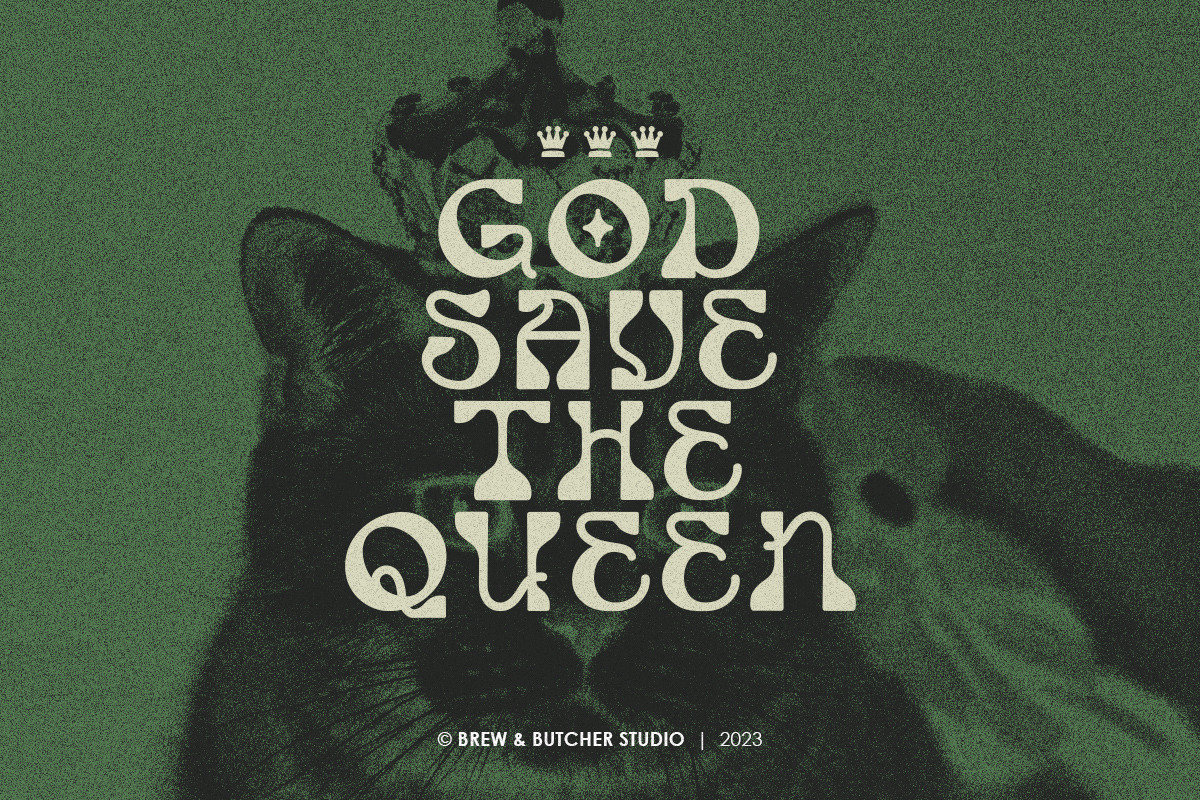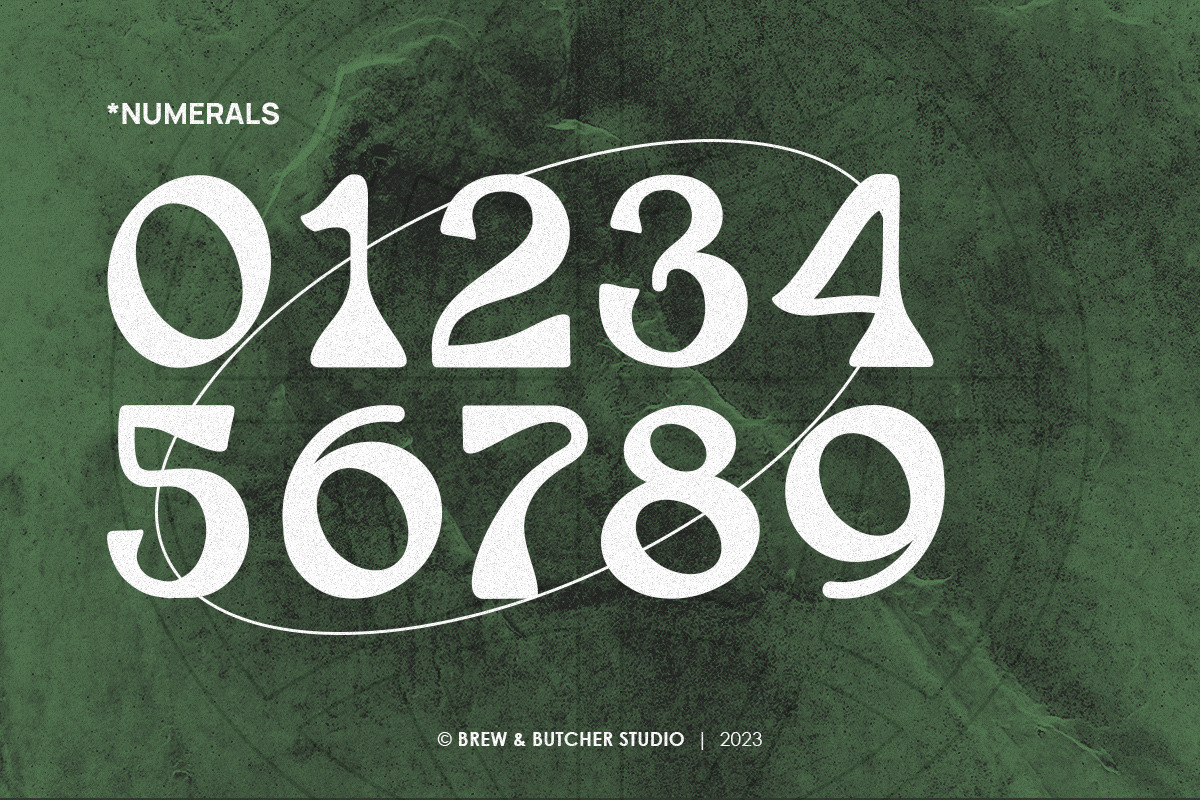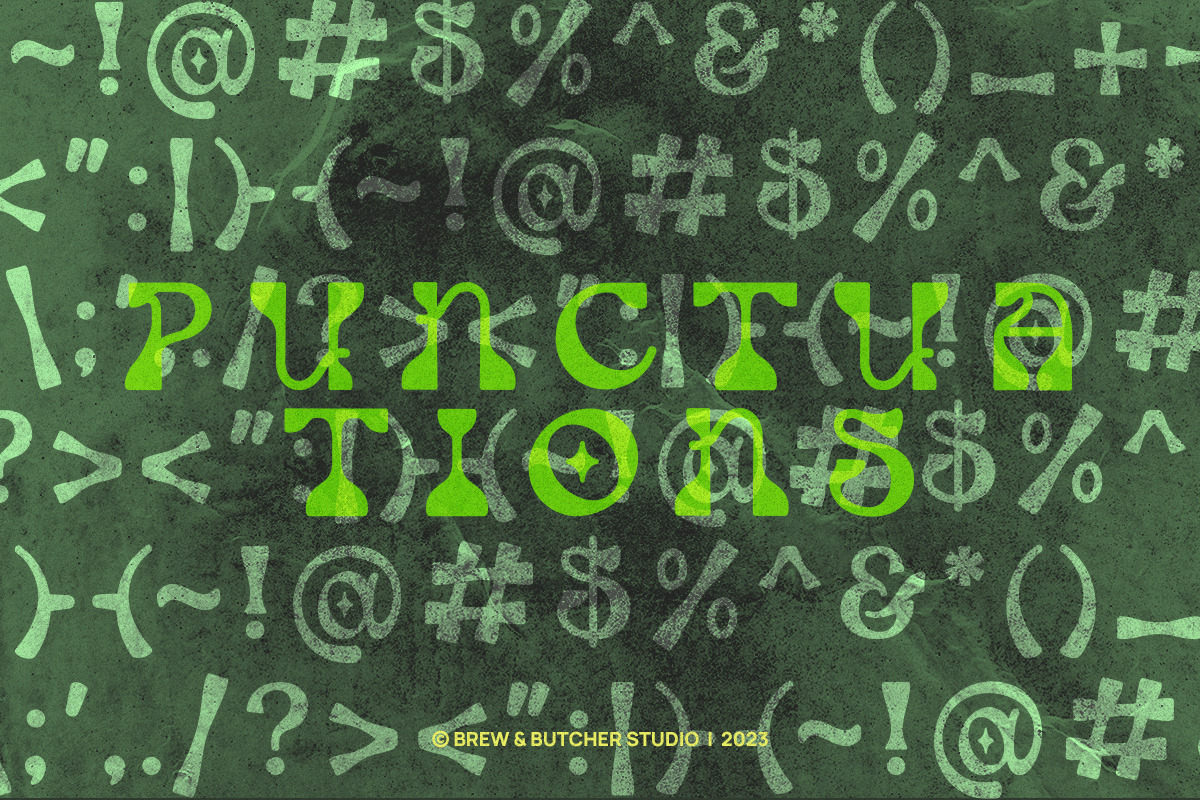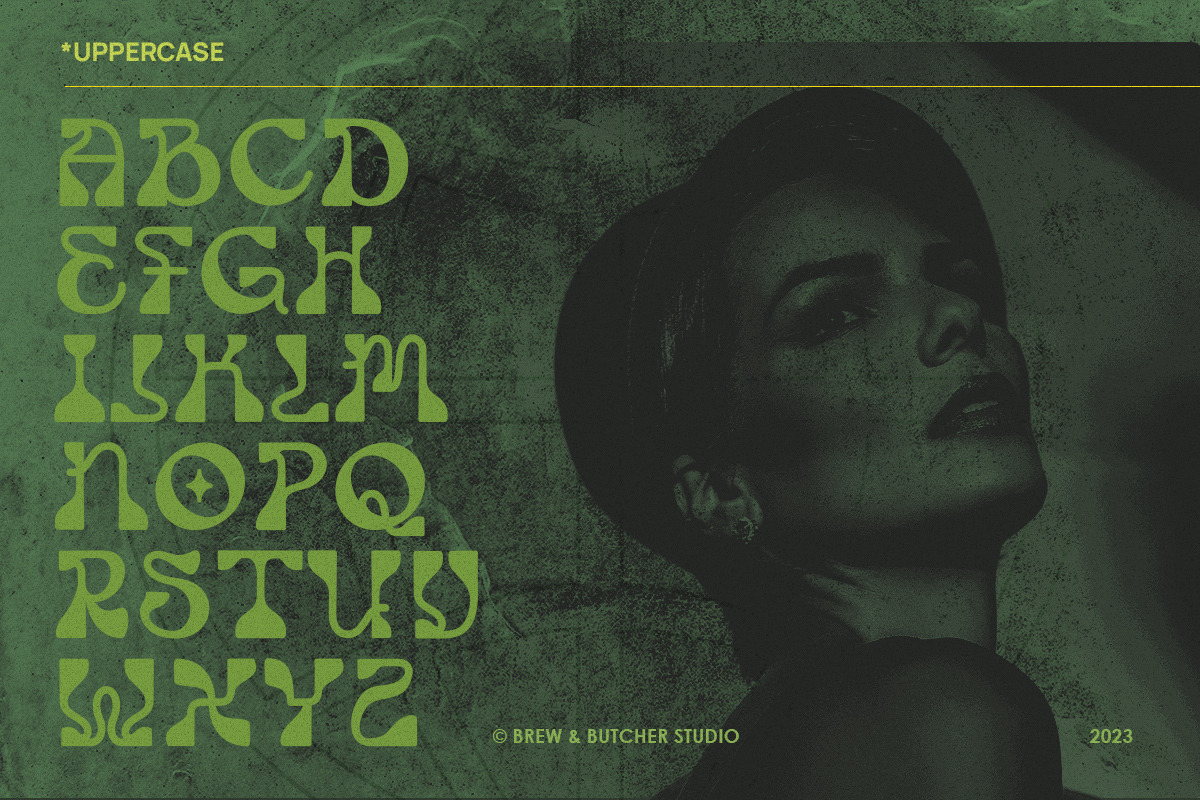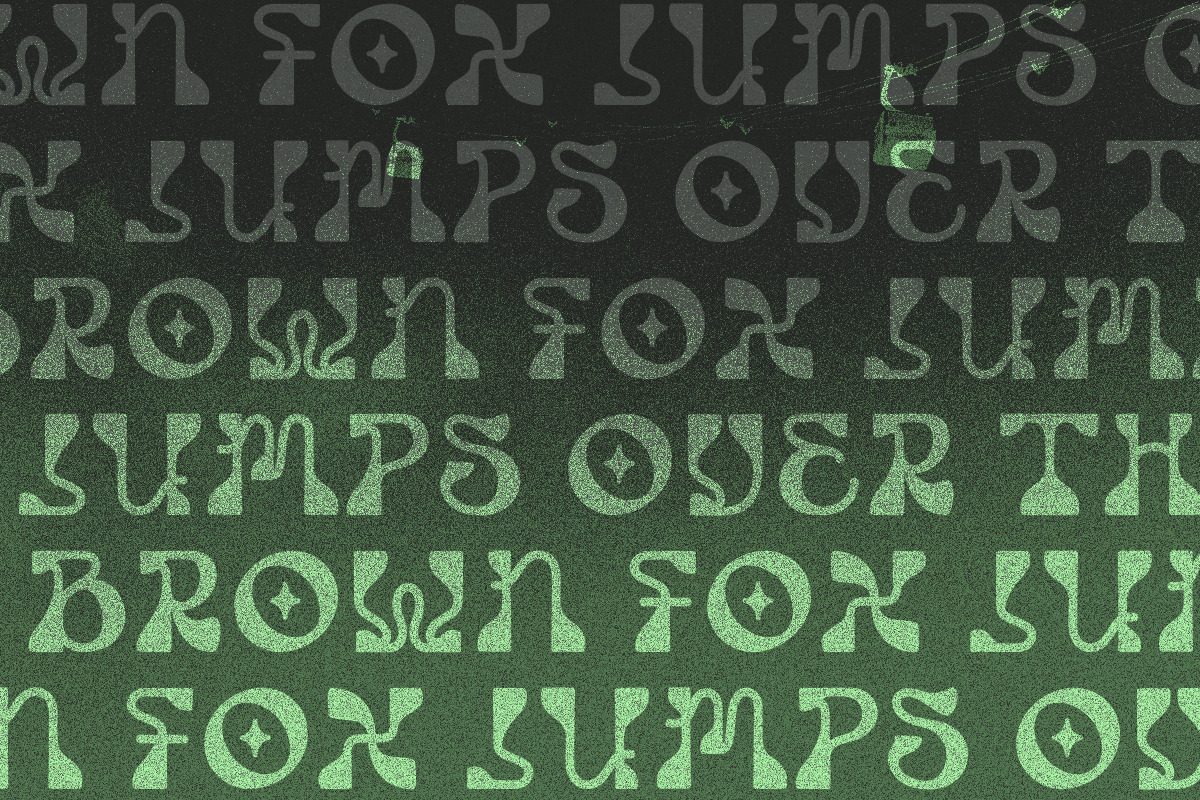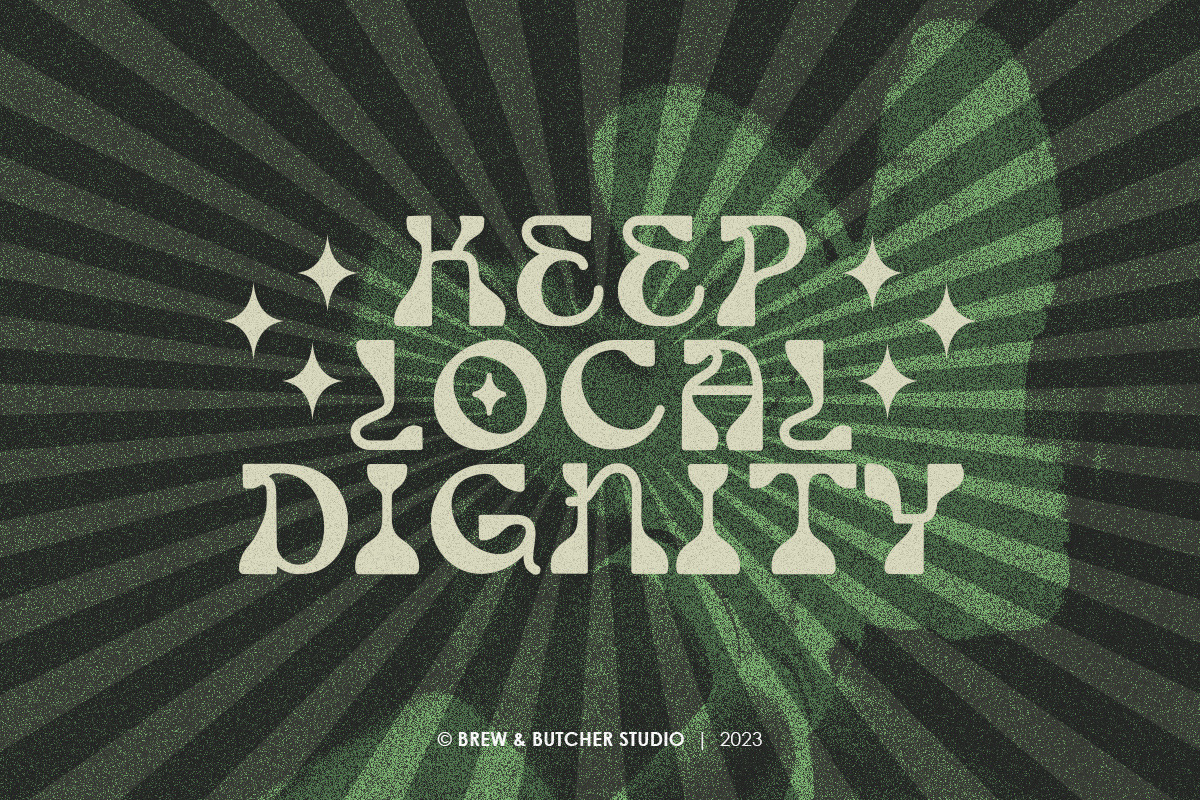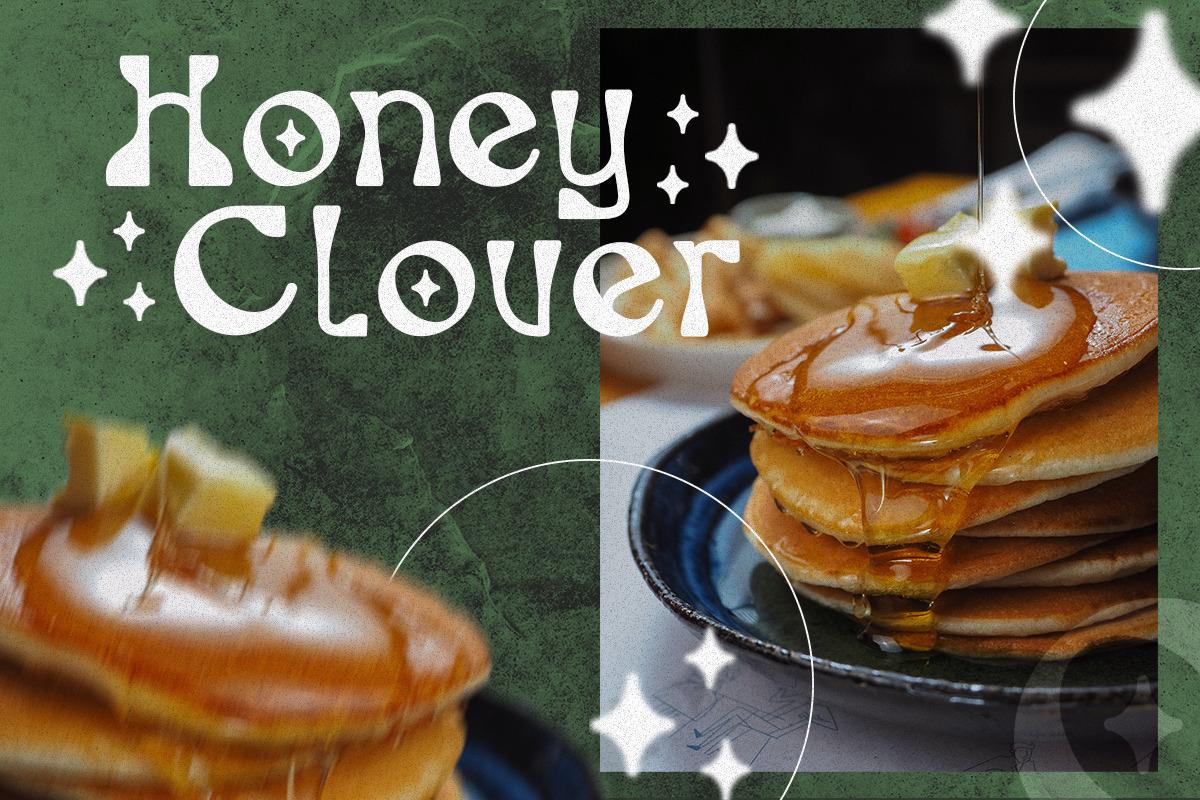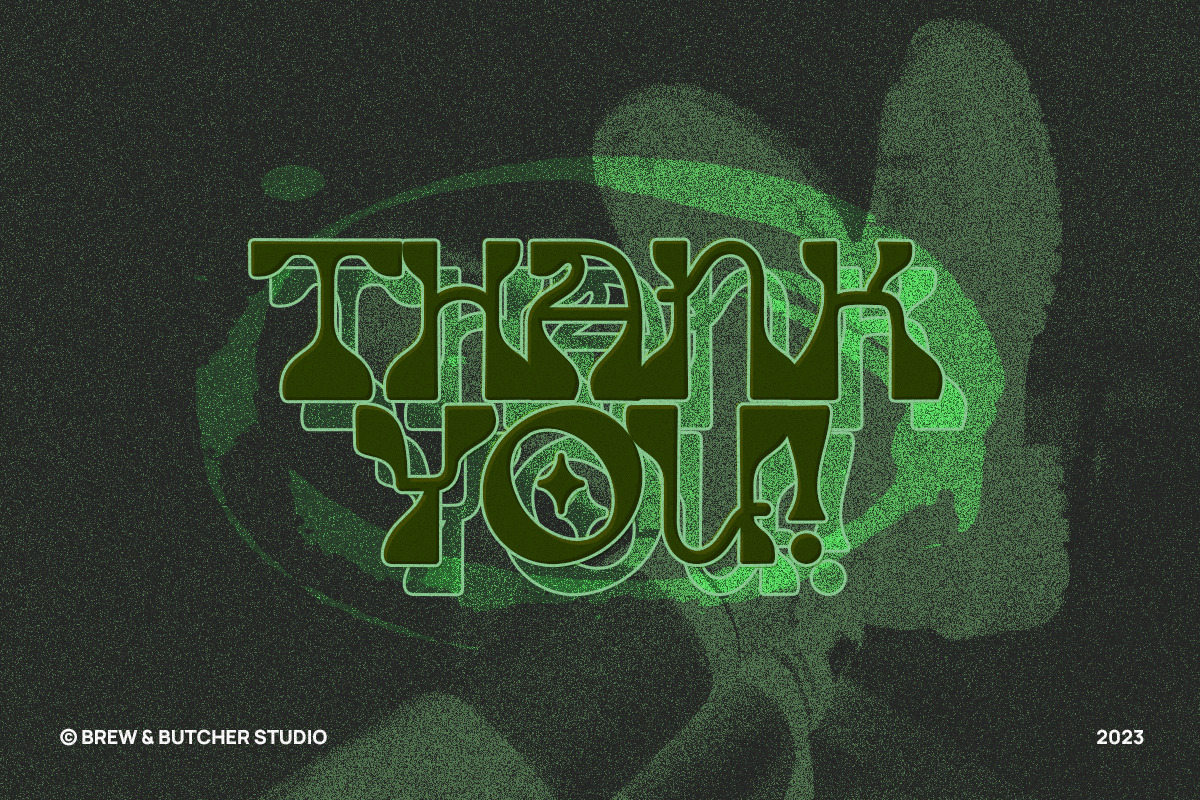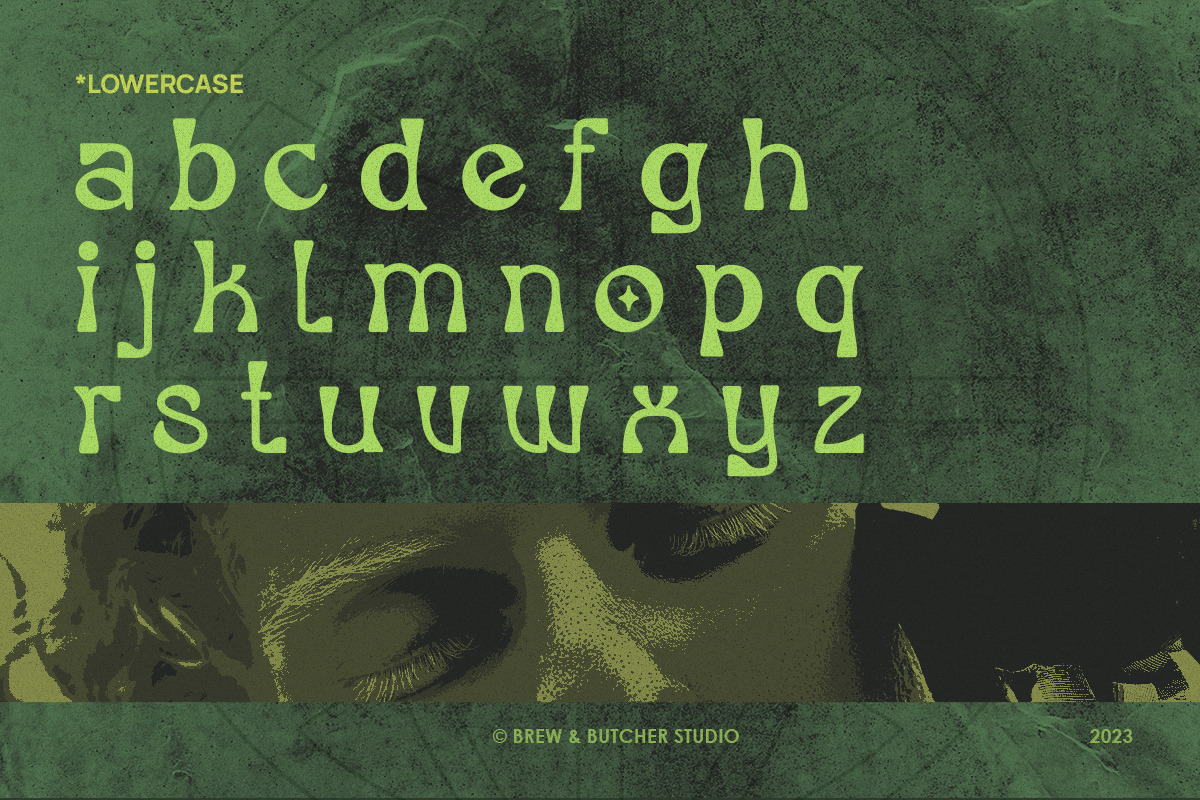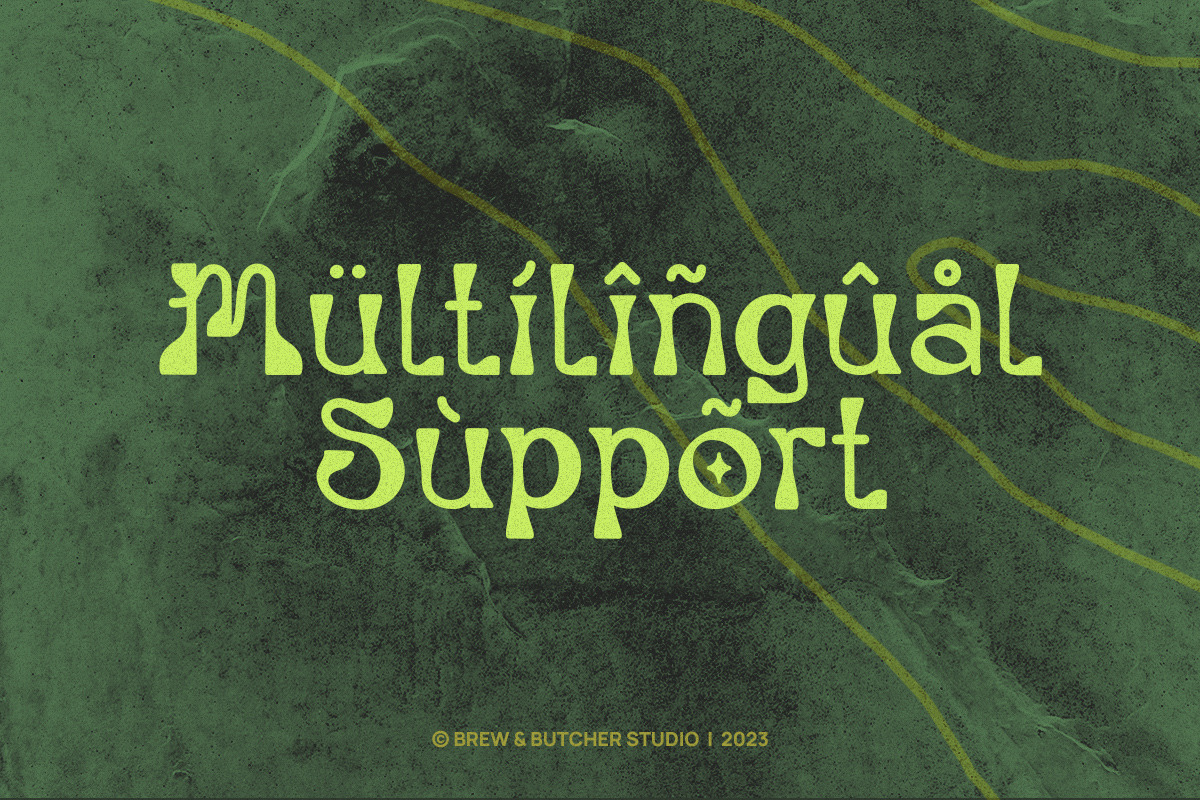
Bombus | Psychedelic Typeface
Bombus is a font that has a unique character and curved shape. The concept and idea of this font is a depiction of a psychedelic style and identical curves. It has smooth curves and a very attractive firmness of shape. This font is best to use for header or headline, poster, flyer, banner, landingpage, portfolio, name write, album covers, and etc.